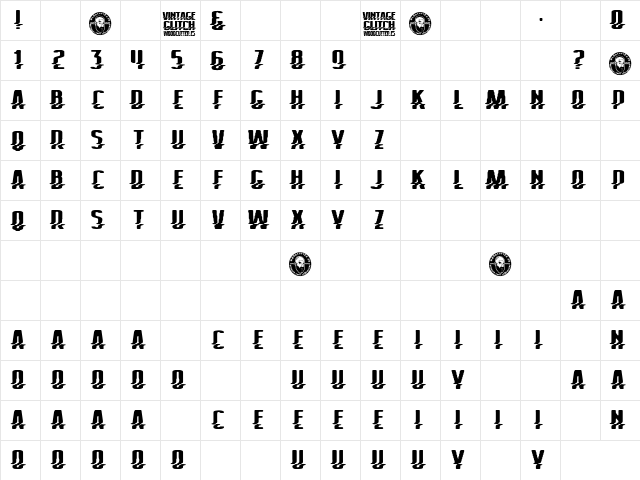
Vintage Glitch Regular
Design Context for Vintage Glitch Typeface
Vintage Glitch has the warm character of retro typography — evoking diners, record sleeves, and the golden age of print advertising.
Ideal for diner signage, record shop branding, 70s/80s-themed projects, and heritage product labels.
Font Pairing: Combine Vintage Glitch with a simple slab or neutral sans — period-accurate companions reinforce the vintage feel without competing for attention.
Pro Tip: Lean into Vintage Glitch's period character by pairing it with aged paper textures, muted colour palettes, and vintage illustration styles.